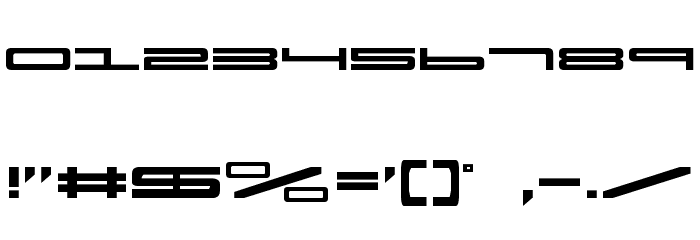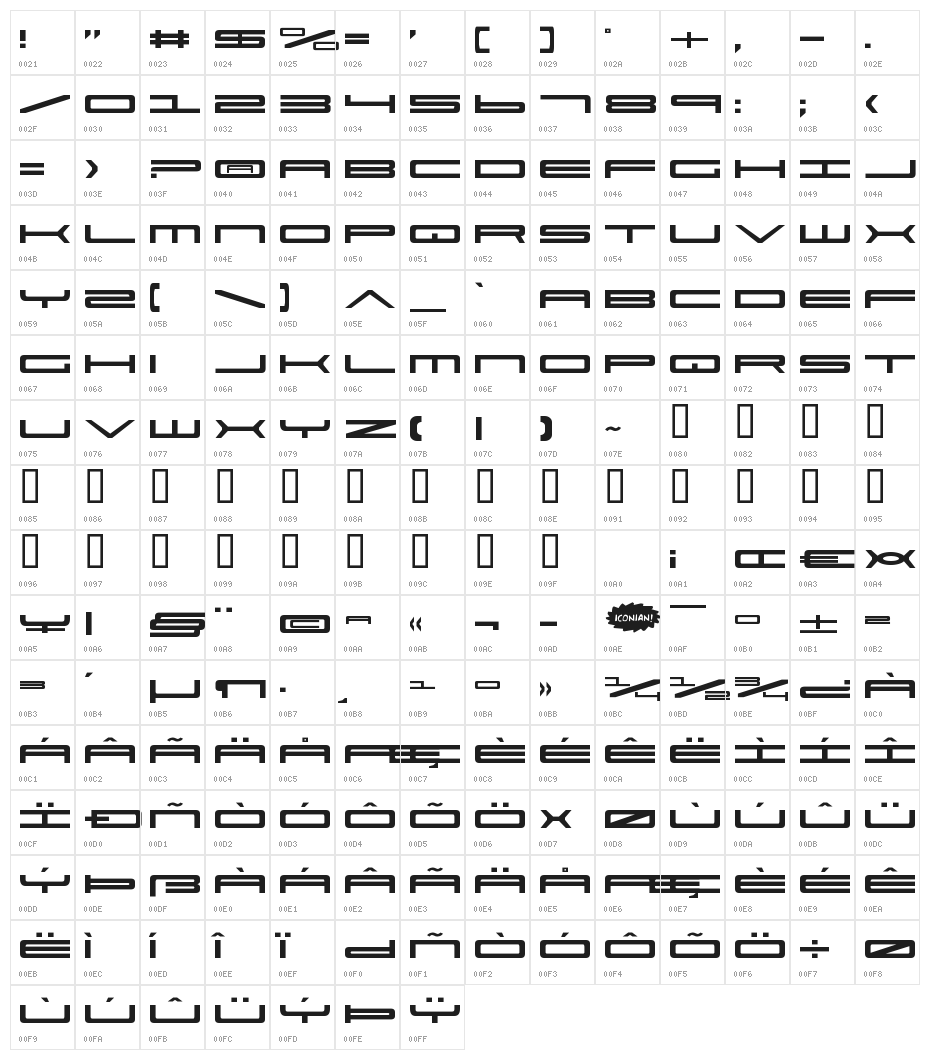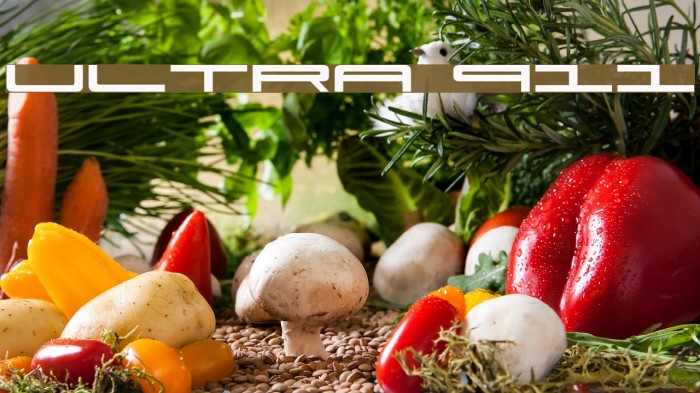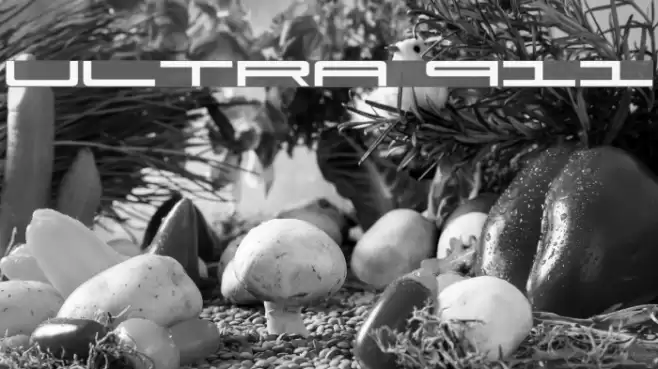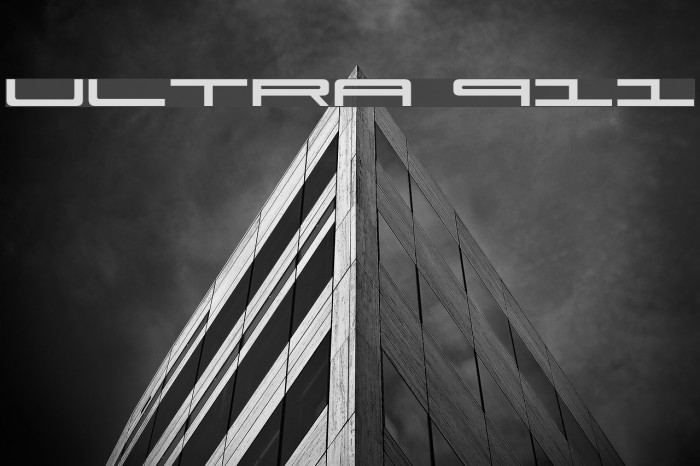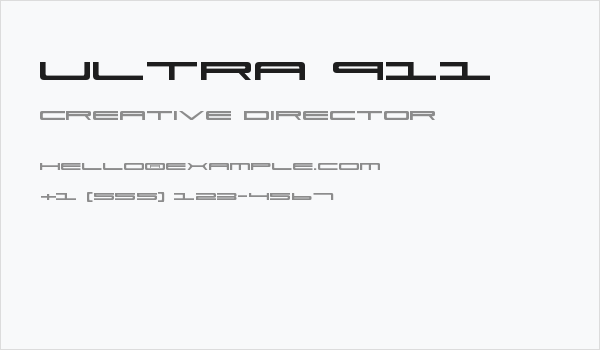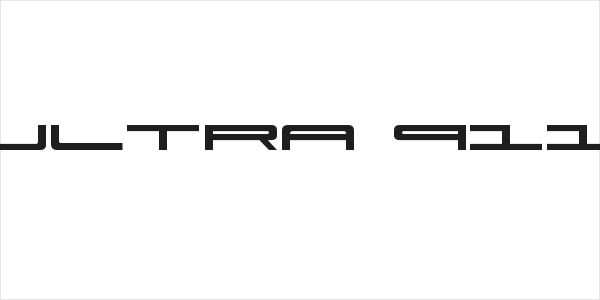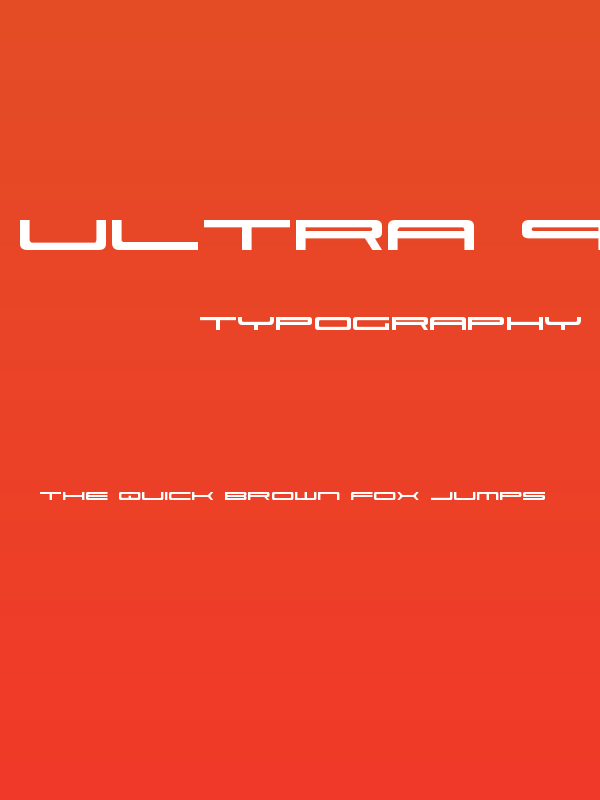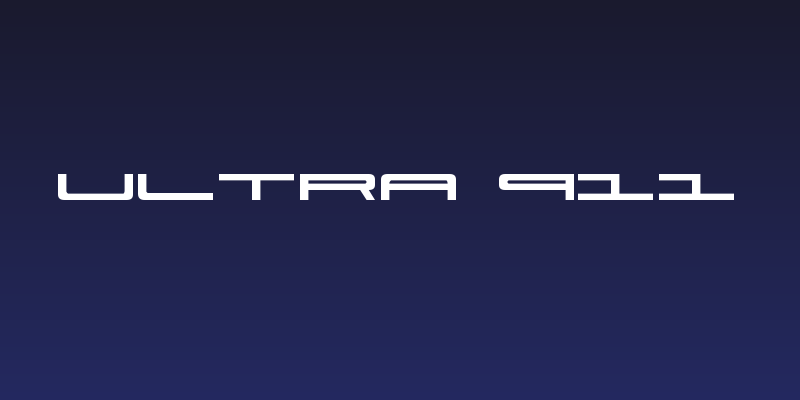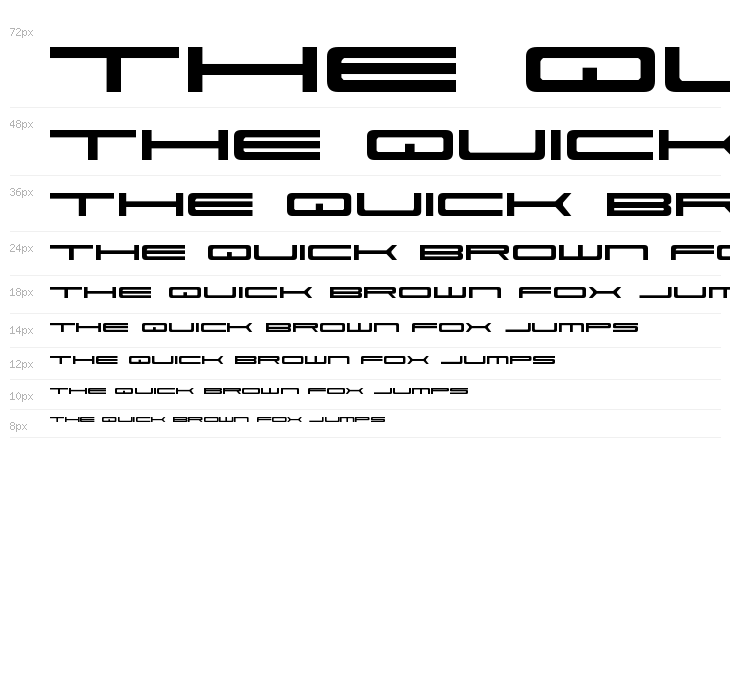
Ultra 911 Font
Ultra 911 Description
This font features a futuristic and geometric design, characterized by its sharp angles and clean lines. The uppercase letters are uniform in height, with a consistent width that gives a sense of balance and symmetry. The lowercase letters maintain the same geometric style, offering a cohesive look across all characters. Numbers and special characters are designed with the same angular precision, making them easily legible while maintaining the font's unique style. This font is ideal for projects that require a modern and tech-oriented aesthetic.